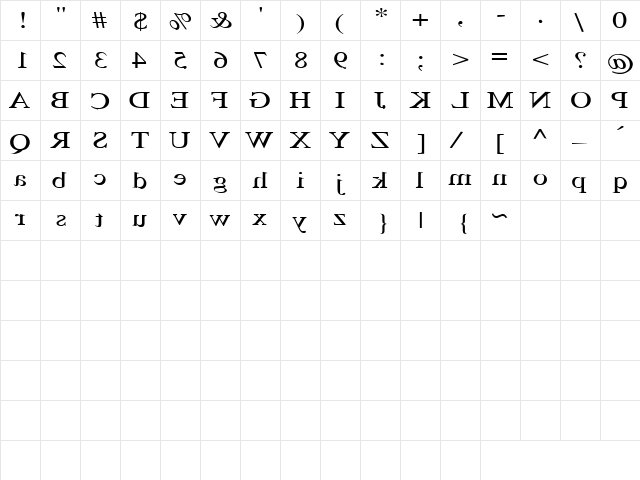
Chain 3 Regular
Design Context for Chain 3 Typeface
Chain 3 takes a measured approach to typography — its balanced proportions and neutral character make it a reliable workhorse for both digital and print work.